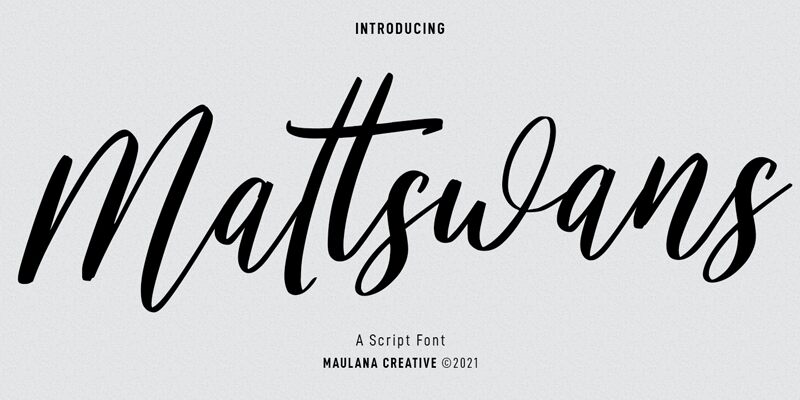
Mattswans
Mattswans is a light and narrow handwritten font designed by MaulanaCreative. Perfect for adding an organic, creative touch to your projects including logos, invitations, posters and more.